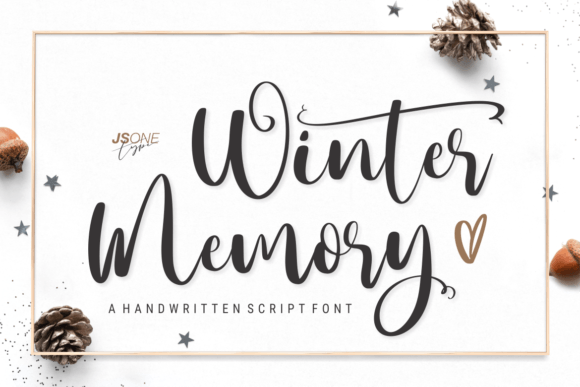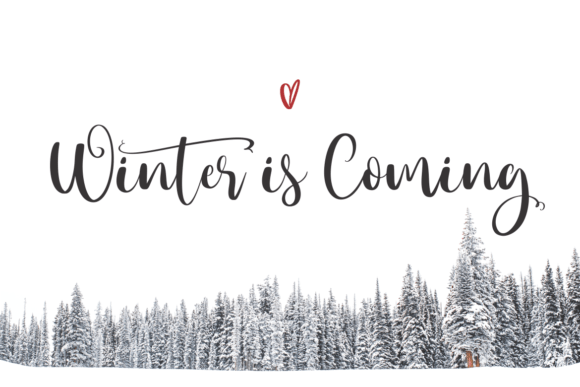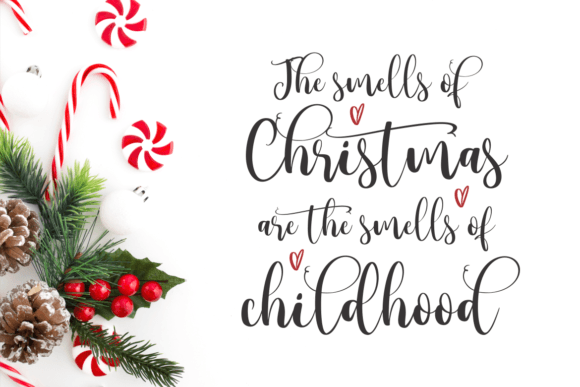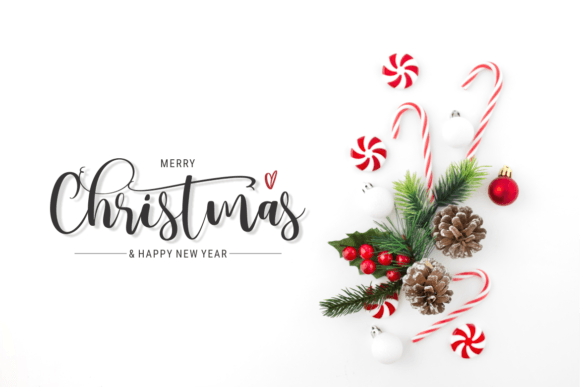
About Winter Memory Font
The Winter Memory Font Download is a delicate and elegant handwritten script designed to add beauty and sophistication to any project. With its flowing lines and stylish character shapes, it offers both grace and versatility. Whether you’re creating personal crafts, professional branding, or unique design elements, this font adapts with ease.
Its romantic and timeless look makes it especially appealing for projects that need a warm and emotional touch. Every letter feels handcrafted, giving your text a natural rhythm and authentic style.
Features of Winter Memory Font
When you choose the Winter Memory Font Download, you gain access to a typeface that combines creativity with usability. Some of its standout features include:
Delicate and elegant design that conveys romance and charm
Stylish handwritten strokes suitable for both print and digital media
PUA encoded access, making it easy to use all glyphs and swashes
Balanced readability for large headlines and smaller body text
Versatility across multiple creative fields
Best Uses for Winter Memory Font
The adaptability of this font makes it a favorite choice among designers. The Winter Memory Font Download can be used for:
Greeting cards – Add a heartfelt, romantic message
Wedding invitations – Create stylish, timeless stationery
Logos and branding – Build a graceful and unique identity
Posters and headlines – Make bold statements with elegance
Social media graphics – Enhance posts with a sophisticated style
Fashion and lifestyle projects – Add a touch of class to your designs
Why Designers Love It
Fonts that combine elegance and usability are rare, and that’s why the Winter Memory Font Download is so valued. Its versatility means you can apply it to both personal and professional projects without losing style or readability. With PUA encoding, you can also explore its decorative elements and swashes, adding depth to your typography.
Because it offers a balance between romantic charm and practical usability, it can easily become a go-to choice for creative professionals.
The Winter Memory Font Download is more than just a handwritten script—it’s a versatile design asset. With its delicate strokes, romantic elegance, and wide range of applications, it will elevate your projects with style and warmth. Whether you’re designing invitations, branding, or social media content, this font ensures a sophisticated finish.